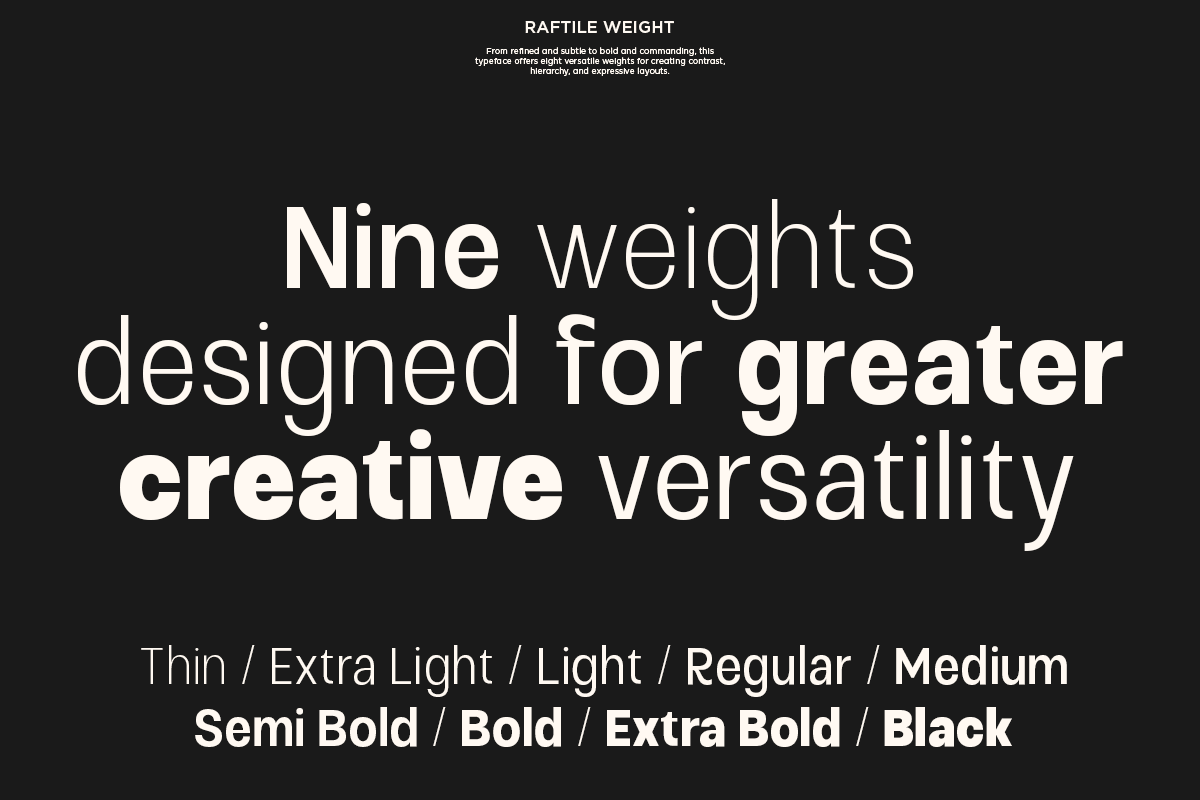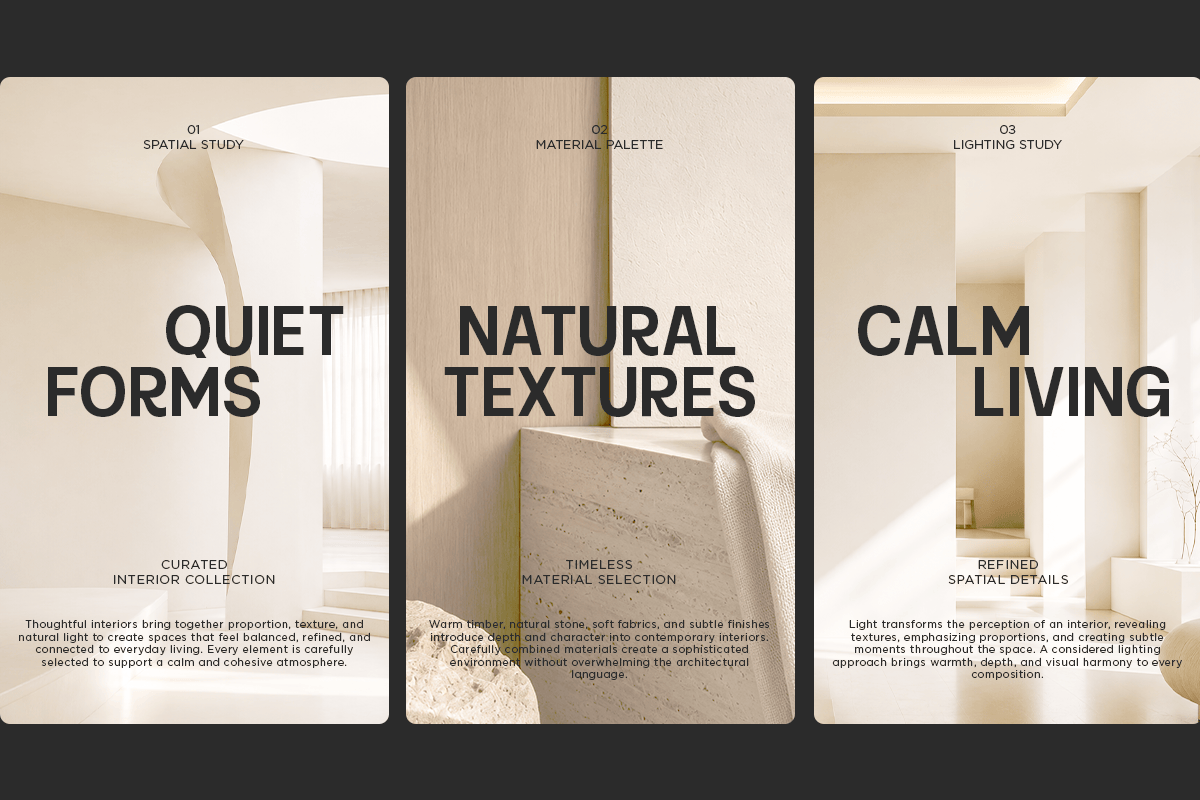
Raftile – Variable Sans Serif Font Family
Raftile is a modern sans serif variable font family featuring 9 adjustable weights, ranging seamlessly from Thin to Black. Designed with clean proportions, smooth curves, and a balanced contemporary character, Raftile gives you the flexibility to create refined typography across a wide range of visual styles.
The family includes 9 variable weights: Thin, Extra Light, Light, Regular, Medium, Semi Bold, Bold, Extra Bold, and Black, allowing you to smoothly adjust the typographic weight and achieve anything from subtle and elegant text to bold and expressive headlines.
Perfect for branding, logo and visual identity, editorial and magazine layouts, posters, headlines, packaging, advertising, fashion and lifestyle projects, web and UI design, social media graphics, corporate materials, and creative typography. Its flexible weight range makes it easy to maintain a consistent visual language while adapting typography to different sizes, layouts, and design applications.